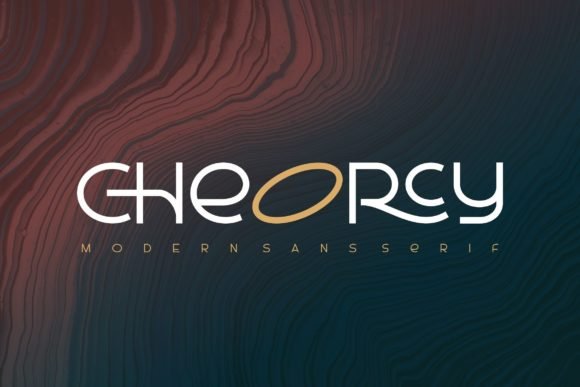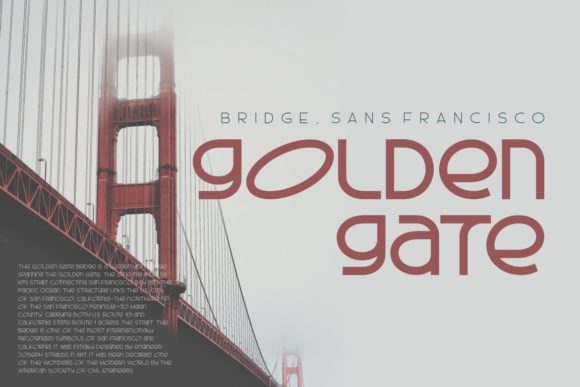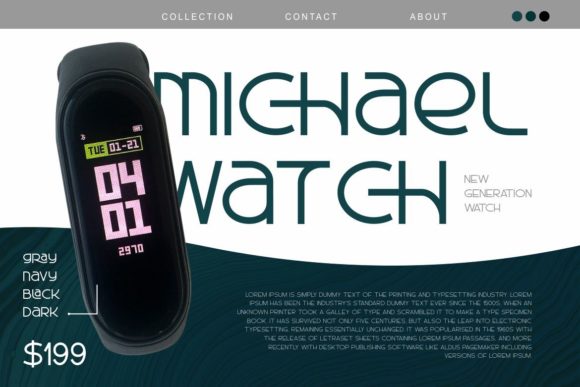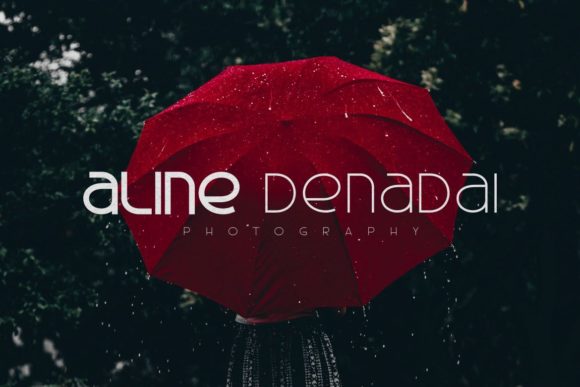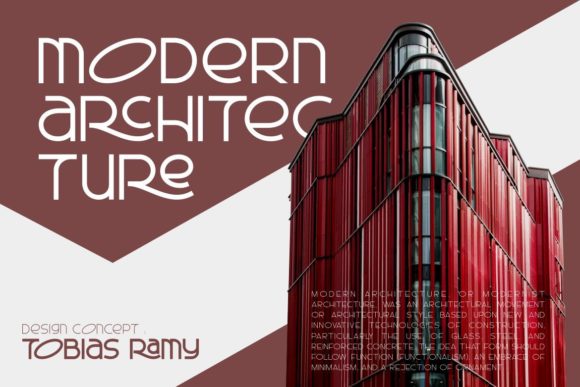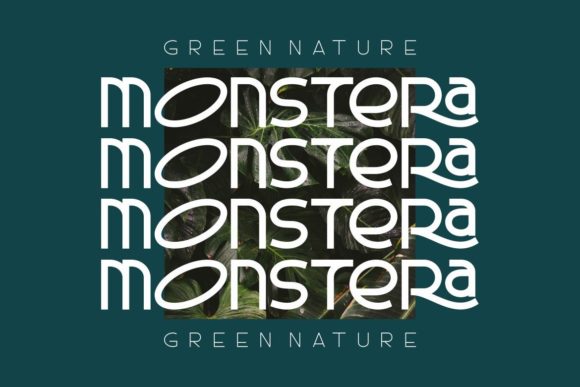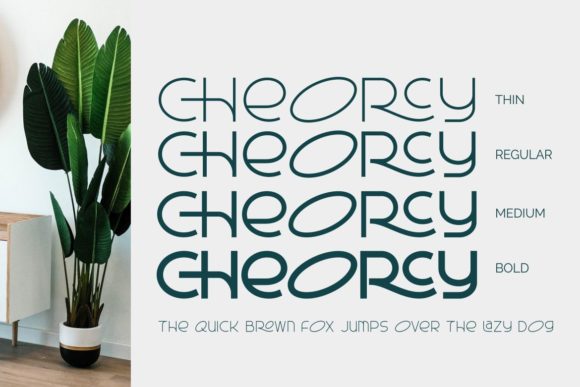
That’s where the Cheorcy Font comes in – a simple yet classy font designed to elevate your logotype, branding, and packaging to new heights. With its clear lines, various weights, and elegant style, this font is a versatile tool for designers looking to create a cohesive and engaging visual identity.
One of the standout features of the Cheorcy Font is its PUA encoding, making it easy to access and use its extensive glyphs and ligatures. Whether you’re working on a title, magazine, label, or advertising campaign, this font is sure to deliver the results you’re looking for.
Cheorcy Font Key Features
- Font Family: Cheorcy Font is a unique, high-quality font family designed for modern and elegant typography. It is available in multiple styles, including Regular, Bold, Italic, and Bold Italic.
- Unique Characteristics: Cheorcy Font features a distinctive, modern design with clean lines, rounded edges, and a subtle flair, making it suitable for a variety of design applications, including branding, advertising, and editorial content.
- Character Set: The font includes a comprehensive character set, including uppercase and lowercase letters, numerals, punctuation marks, and special characters, ensuring that designers have all the necessary tools to create professional-looking designs.
Designer Review: Cheorcy Font
First off, let me say that I was pleasantly surprised by Cheorcy Font. The unique blend of elegance and playfulness makes it a great choice for designers looking to add some personality to their projects. ✨ The font’s versatility shines through in its numerous weights and styles, making it easy to find the perfect fit for any design.
One of the standout features of Cheorcy Font is its excellent legibility, even at small font sizes. This makes it perfect for body text, headings, or even signage. ✨ The font’s fluidity and rhythm also make it a joy to read, with a natural flow that’s easy on the eyes.
- ⚠️ Limited language support: While Cheorcy Font covers a wide range of languages, it’s not entirely comprehensive, which may be a concern for designers working with non-English scripts.
- ⚠️ Limited compatibility: Some users have reported issues with Cheorcy Font in certain design software or operating systems, so be sure to test it thoroughly before committing to a project.
Overall, I’d say Cheorcy Font is a solid addition to any designer’s toolkit. Its unique blend of style and substance makes it a great choice for projects that require a bit of flair. While it may have some limitations, the benefits far outweigh the drawbacks, making it a font worth considering for your next design project.
Tips for Getting the Most Out of Cheorcy Font
Use Cheorcy Font for titles, headings, and emphasis.
Pair Cheorcy Font with other fonts for a unique and visually appealing design.
Experiment with different font sizes, colors, and styles to create a unique look.
Use Cheorcy Font for:
Brand logos and identities.
Headings and titles in publications and presentations.
Emphasis and emphasis in digital and print media.